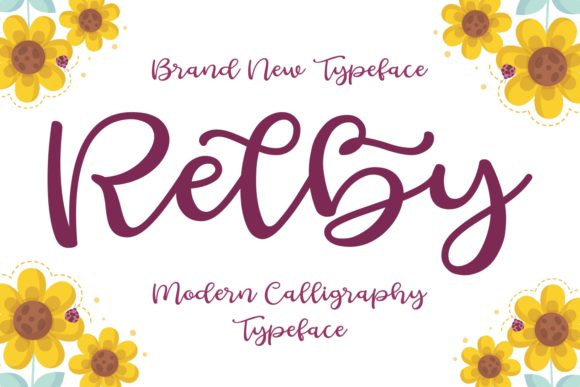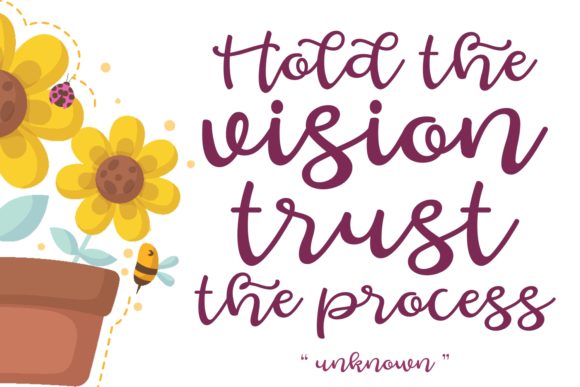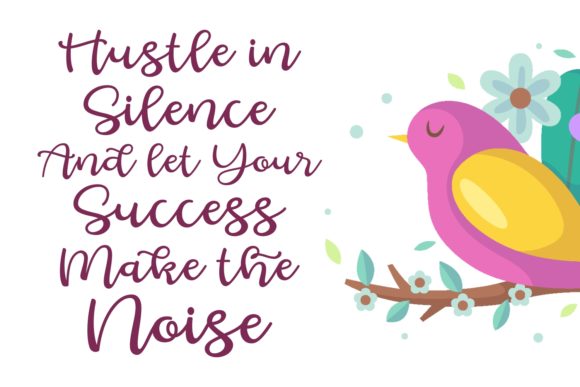
Relby Font
About Relby Font
Relby is a lovely, flowing handwritten font. Its smooth style makes it fit for a wide variety of topics and projects. Get creative with Relby and use it to elevate your designs to the highest level!